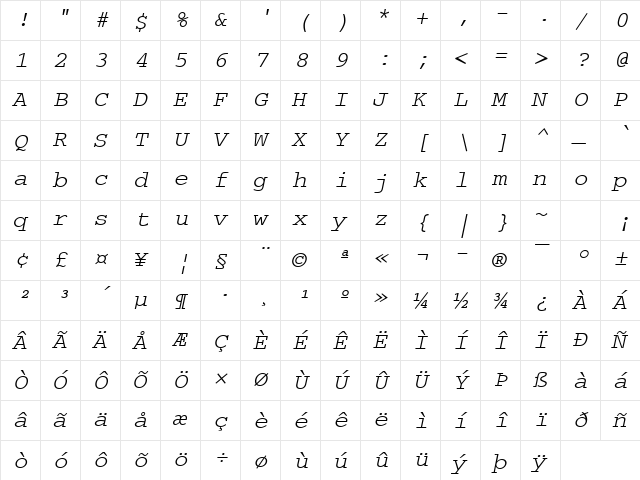
CourierPS Oblique
Design Context for CourierPS Typeface
CourierPS brings the precise, column-aligned rhythm of monospaced typography to designs that value technical clarity and systematic order. The slanted form adds forward momentum and visual energy.
Pro Tip: Pair CourierPS with a proportional sans for UI contexts where code-style labels and regular body copy need to coexist.